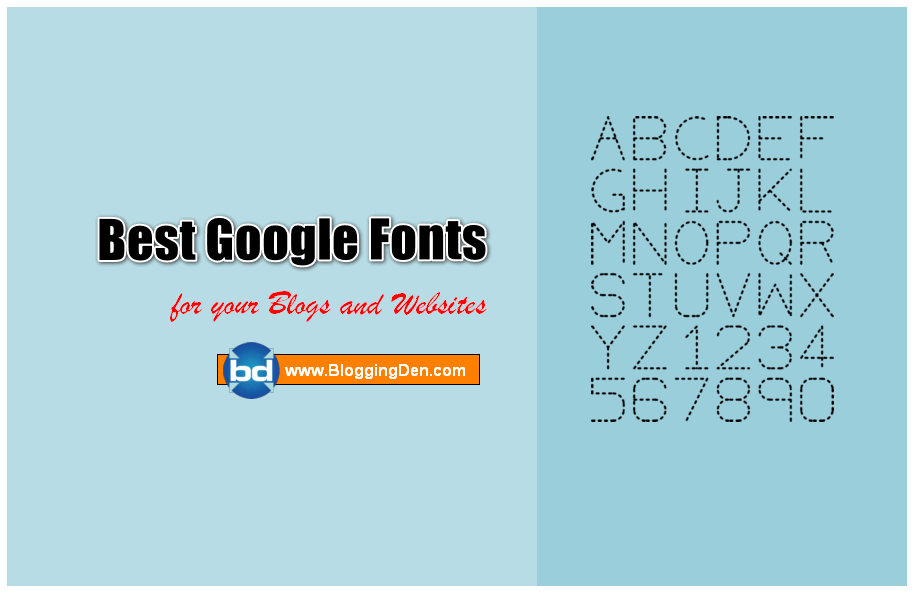
Talking about best blog fonts, it is always necessary to choose a significant blog font that will impact your website look.
It is not only about the website look that we need to focus on while choosing fonts it is also crucial that the font will make your reader stay long on your website.
Some fonts, even though looking amazing, they may be very vigorous which divert the attention of the audience.
Such fonts should not be used if your blog targets on content.
We know about Google Fonts. But there are plenty of free Font providers.
Even though your blog is updated with the best content sometimes it may give a very bad experience to the user if the font is bad.
A good looking font will give your user the best experience in reading your content.
To say in a whole the font will decide your content. If your blog font is not up to Expectations user will assume the content as a flaw.
So it is always necessary to choose the best font for your blogs.